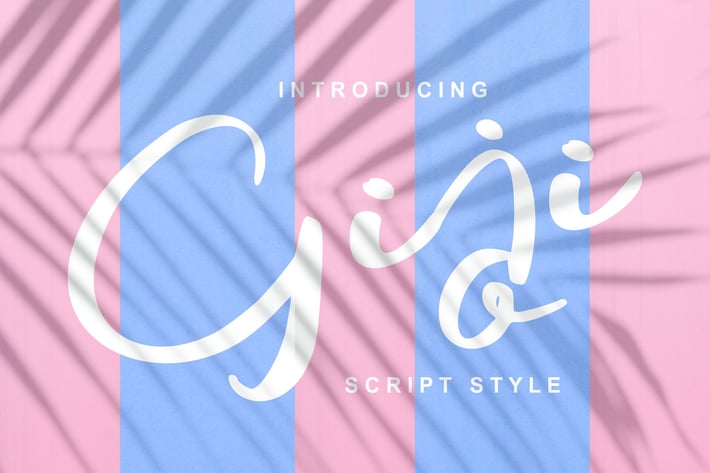
Giji | Modern Script Style Font
Giji | Modern Script Style Font with a calligraphy style, So beautiful on invitation like greeting cards, branding materials, business cards, quotes, posters, and more!